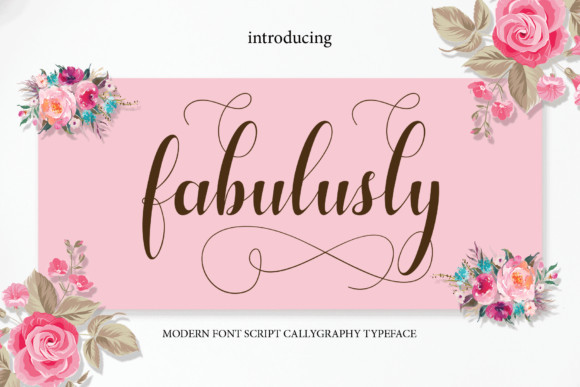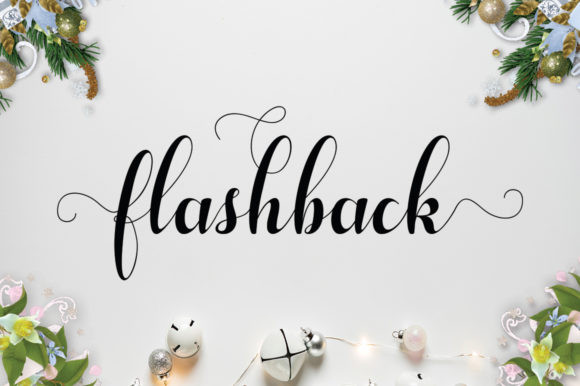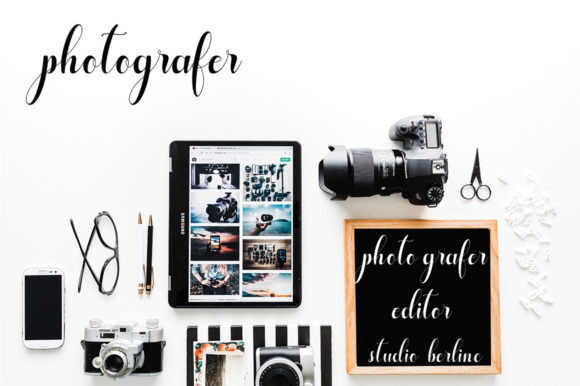
Fabulusly Font
This joyful and modern calligraphy font features an incredibly romantic flow. It’s bouncy, beautiful, and flexible, so it’s highly recommended for wedding crafts, as well as for projects that require a sweet, playful and charming feel. Get inspired by its unique appeal, and elevate any crafting project with this one-of-kind script!